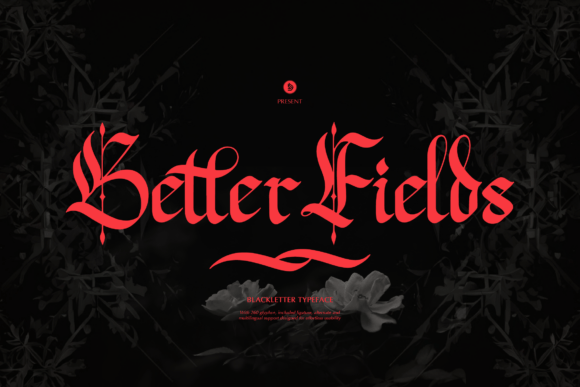
Better Fields: A Timeless Blackletter Font for Modern Creativity
Fonts play a crucial role in shaping the visual identity of any project. Whether you're designing a brand logo, crafting a product label, or putting together an elegant invitation card, choosing the right typeface can make all the difference. Better Fields is a blackletter font that bridges the gap between historical elegance and contemporary design needs. Its unique structure and aesthetic versatility allow it to thrive across a wide range of applications—from branding materials to lifestyle products—making it a valuable tool for designers, entrepreneurs, and creatives alike.
The Charm of Blackletter Typography
Blackletter fonts, also known as Gothic or Old English scripts, have their roots in medieval calligraphy. Traditionally used in European manuscripts and early printed books, these fonts convey a sense of tradition, authority, and sophistication. While once seen primarily in formal contexts like legal documents or religious texts, blackletter has experienced a renaissance in recent years due to its striking visual appeal and adaptability in modern graphic design.
Better Fields captures this essence with a clean, structured approach that retains the ornate feel of classic blackletter while making it more legible and scalable for today’s digital and print environments. It's not just a throwback; it's a refined evolution of a timeless style, ready to meet the demands of modern creativity.
Why Better Fields Stands Out
What sets Better Fields apart from other blackletter fonts is its balance between authenticity and usability. Many traditional blackletter fonts are difficult to read at smaller sizes or on screens, but Better Fields addresses these issues without compromising its distinctive character. This makes it suitable for both large-format designs like posters and small details such as name cards or product packaging labels.
- Elegant and Distinctive: The sharp angles and flowing strokes of Better Fields lend a dramatic flair to any design.
- Versatile Application: From homeware designs to photography watermarks, this font adapts well to various media types.
- Modern Legibility: Improved spacing and stroke consistency ensure readability without losing the font’s classic charm.
- Brand Identity Builder: Its bold presence helps establish strong visual identities for niche brands or artisanal products.
Applications Across Industries
With its rich, handcrafted look, Better Fields is ideal for a variety of uses. Here are some key areas where it shines:
Branding and Logo Design
In branding, typography often serves as the backbone of a company’s identity. Better Fields brings a sense of heritage and uniqueness to logos, especially for businesses in the craft, luxury, or cultural sectors. For example, a boutique winery might use it for a vintage-inspired label, or a publishing house could feature it prominently in book covers to evoke a literary tradition.
Product Packaging and Merchandise
From t-shirts and mugs to shopping bags and greeting cards, product packaging benefits greatly from thoughtful typography. Better Fields adds a touch of artistry and personality to merchandise, helping products stand out on crowded shelves or in online marketplaces. Its ability to scale effectively means it looks great whether printed in large letters on a poster or in small text on a label.
Event and Invitation Design
Weddings, galas, and special events often rely on typography to set the tone. Better Fields offers a sophisticated and memorable option for invitation cards, event banners, and signage. Its intricate letterforms can create a feeling of grandeur or nostalgia depending on how it's styled, making it adaptable for both classical and modern event themes.
Photography and Watermarking
For photographers and content creators, adding a subtle watermark or signature to images is essential for protecting intellectual property. Better Fields provides a visually appealing solution that doesn’t distract from the main content but still asserts ownership. Its script-like appearance adds a personal touch, aligning with the trend of individualized branding in the creative industry.
Aligning with Current Creative Trends
In today’s design landscape, there’s a growing appreciation for fonts that tell a story. Consumers and professionals alike are gravitating toward styles that reflect craftsmanship, authenticity, and a connection to history. This shift is evident in everything from minimalist fashion to artisanal food packaging, where typography plays a key role in communicating values and aesthetics.
Better Fields fits perfectly into this movement. As more businesses seek to differentiate themselves through visual storytelling, using a font like Better Fields can help them tap into the emotional resonance of traditional design elements while maintaining modern functionality.
Evolution of Blackletter Fonts in the Digital Age
Historically, blackletter was associated with formality and rigidity. But as design software and tools have evolved, so too has the application of blackletter fonts. They’re now being used in ways that weren’t possible before—such as animated titles in video production, interactive web headers, and mobile-responsive branding.
As the design community continues to embrace fonts that reflect deeper meaning and visual interest, Better Fields is poised to remain a go-to choice for those seeking a touch of classic elegance in their work. Its adaptability ensures it won’t fade with trends but instead evolve alongside them, offering enduring value in an ever-changing creative world.